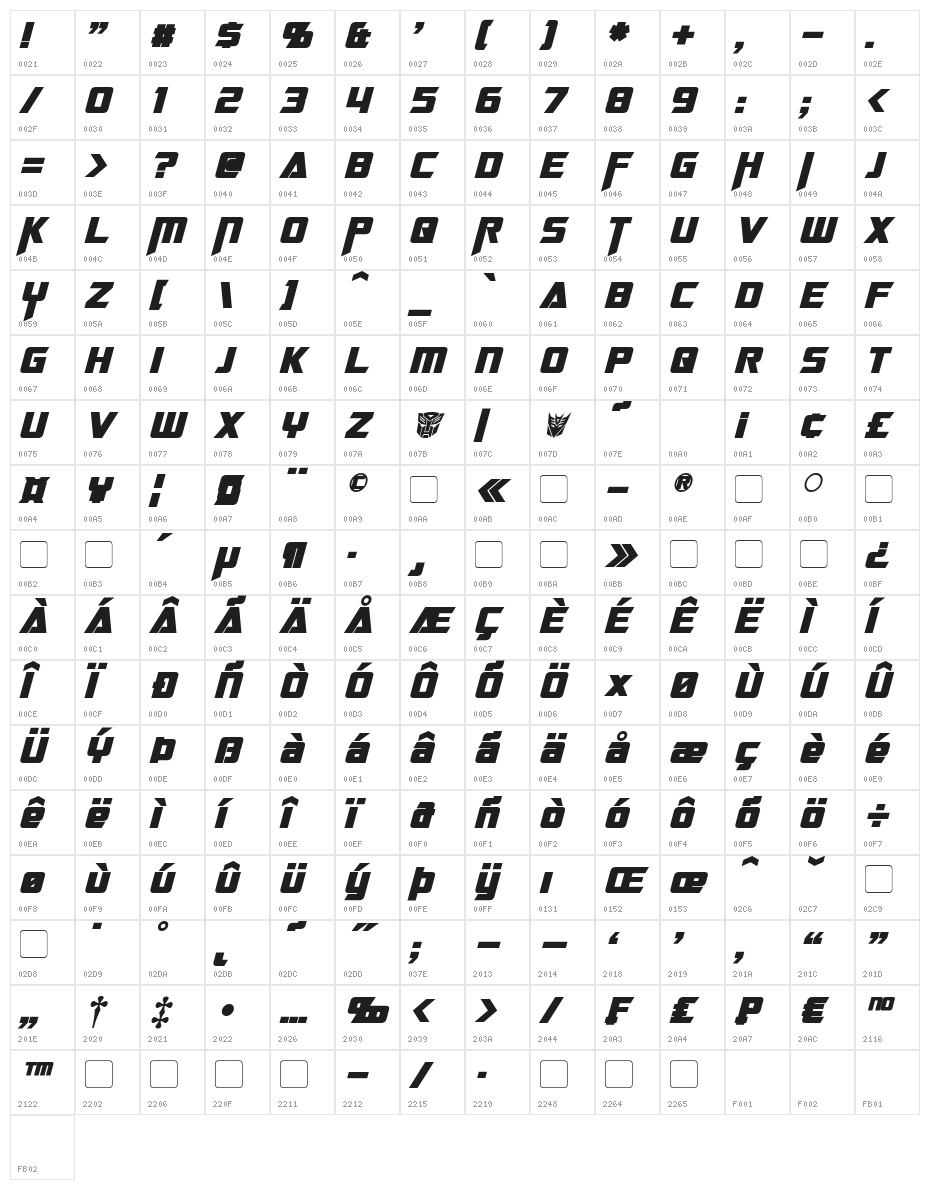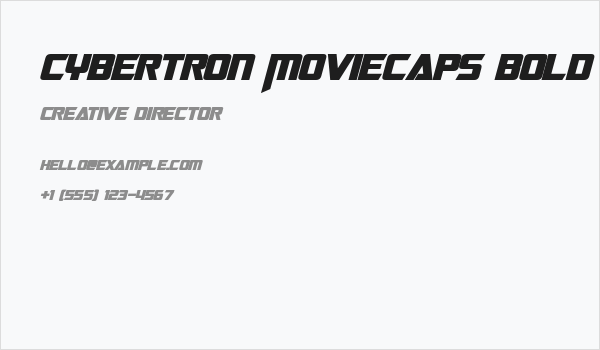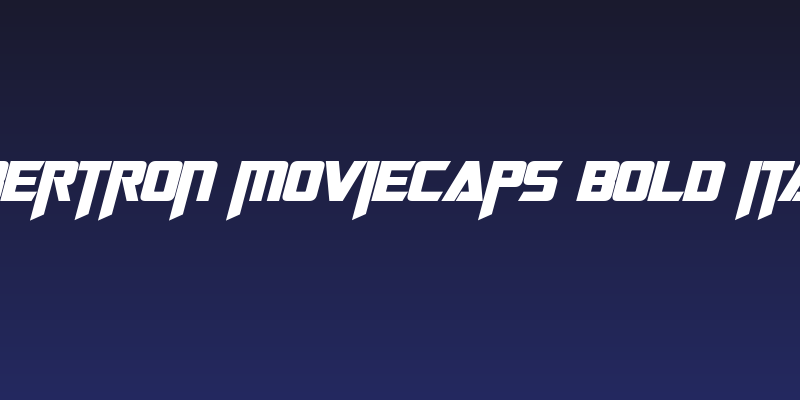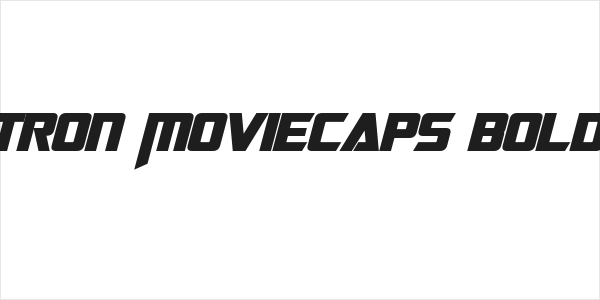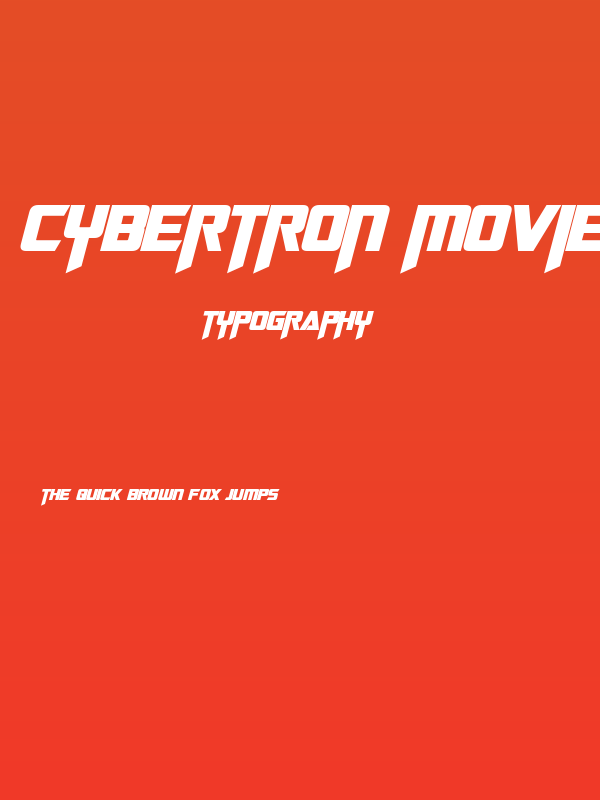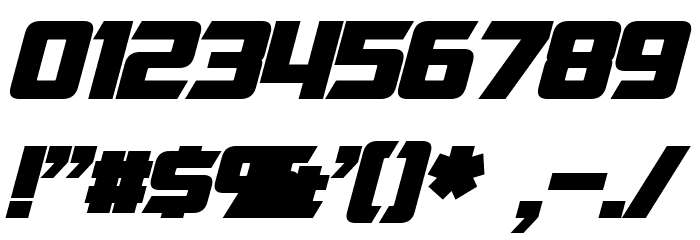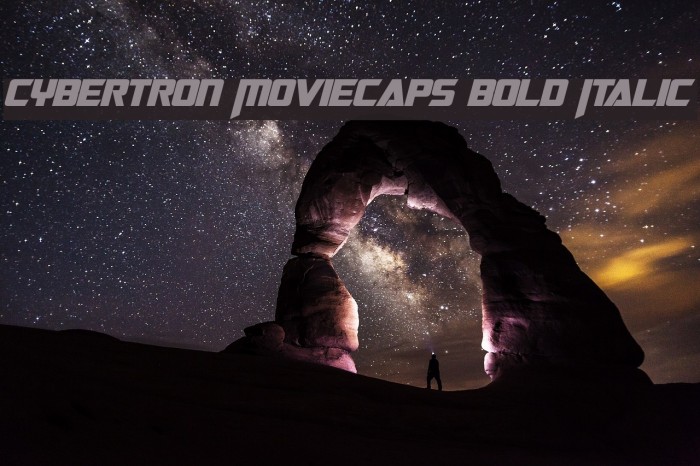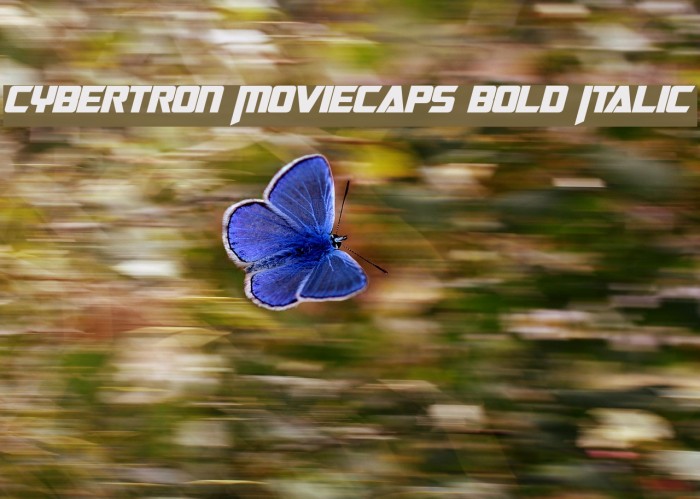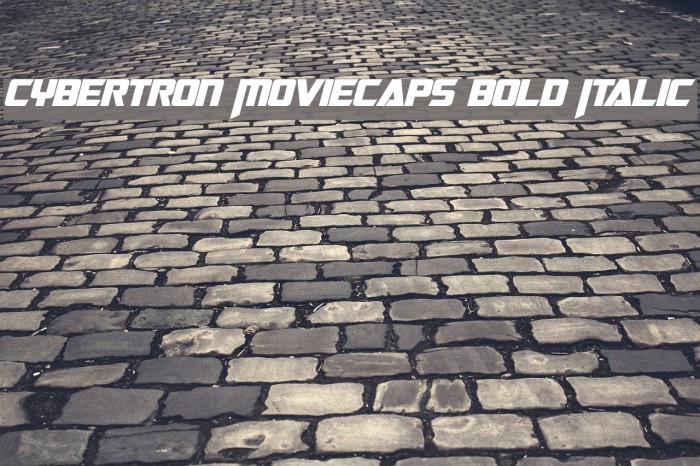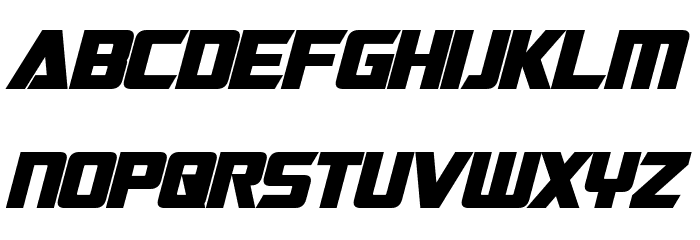
Cybertron Moviecaps Bold Italic Font
Cybertron Moviecaps Bold Italic Description
This font features a bold and italicized style with a futuristic and angular design. The characters are sharply cut with a forward-leaning stance, giving a sense of motion and speed. The uppercase letters are particularly striking, with unique geometric shapes that create a dynamic and aggressive appearance. The numbers and special characters maintain this angular aesthetic, ensuring consistency across all glyphs. The font's bold weight and italic slant make it ideal for attention-grabbing headlines and titles.
| Proposed Projects | Ideal for sci-fi movie posters, video game titles, tech branding, and futuristic-themed designs. |